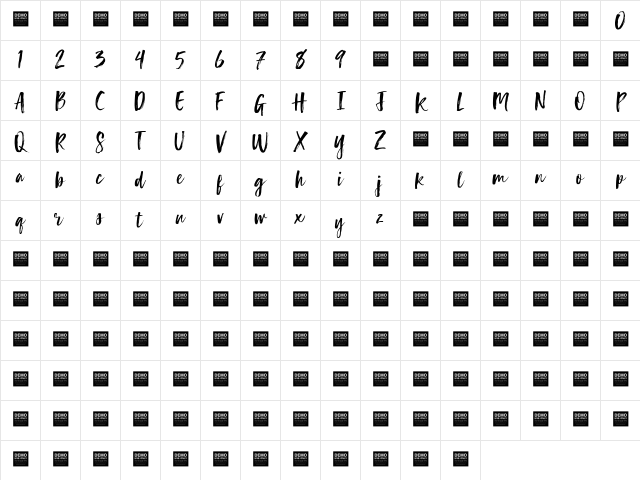
Lucky Turns - Demo Regular Free Font
Lucky Turns - Demo Regular
Foundry: BLKBK
Designer: BLKBK
Design Context for Lucky Turns - Demo
Lucky Turns - Demo is a composed and adaptable typeface that performs quietly and consistently across a wide range of design contexts.